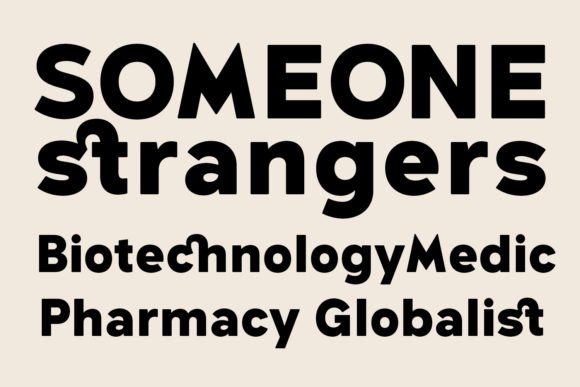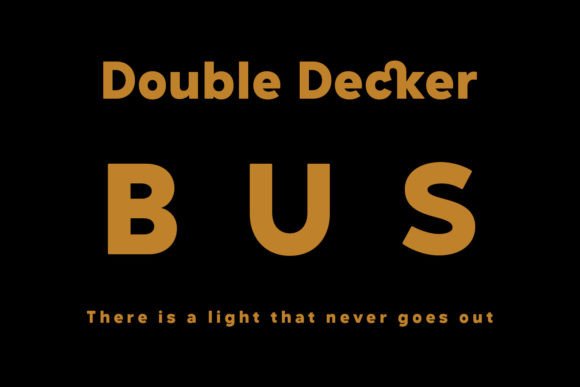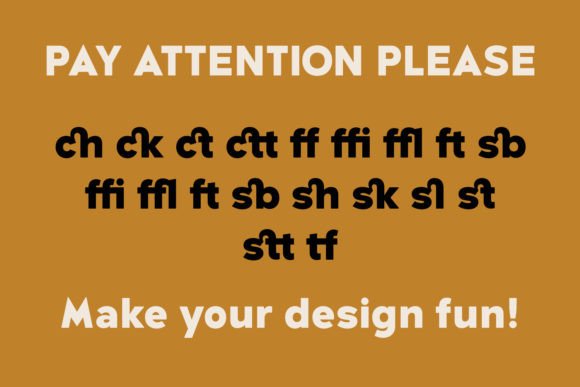
Introduction to Rectila Font Font
Fonts play a crucial role in design, and the Rectila Font font is a typeface that brings both character and versatility to any project. Whether you’re working on a branding project, a website, or a print design, the Rectila Font font offers a unique style that can elevate your work.
| 📌 Font Name | Rectila Font |
| 👤 Author | Maulana Creative |
Rectila is a semi-geometric sans serif font.
Fall in love with its incredibly distinct and timeless style and use it to create spectacular designs .
Key Features of Rectila Font Font
Why Choose Rectila Font Font?
The Rectila Font font is more than just a typeface – it’s a design tool that helps you communicate your message with style and clarity. Its unique character set and versatile design make it suitable for a wide range of applications, from elegant invitations to bold headlines.
With its carefully crafted letterforms and balanced proportions, the Rectila Font font ensures readability and visual appeal across all mediums.
What makes Rectila Font font special?
The Rectila Font font stands out with its unique design, exceptional readability, and versatility across various design applications.